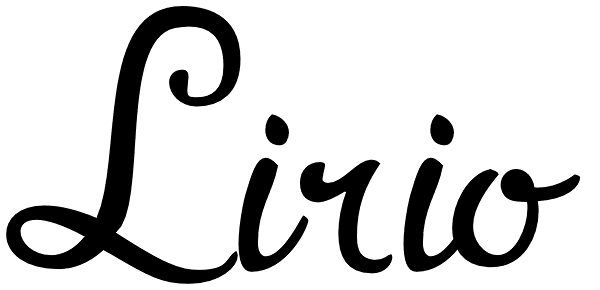
Lirio
Lirio is a decorative and expressive typeface, it’s elegant yet eccentrically handwritten font. Lirio is presented in two versions: Regular and Slanted. They have many advantages of the OpenType futures to choose from: stylistic alternates, swashes...
Lirio
Lirio Slanted